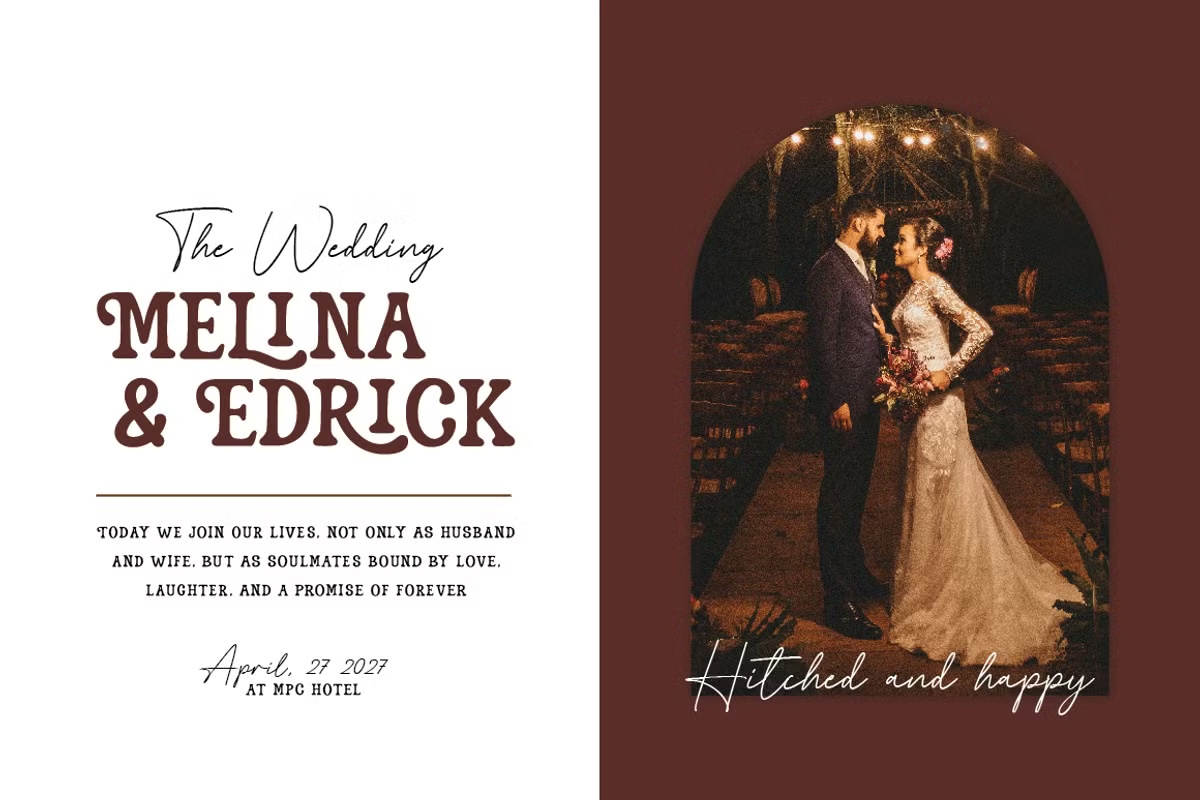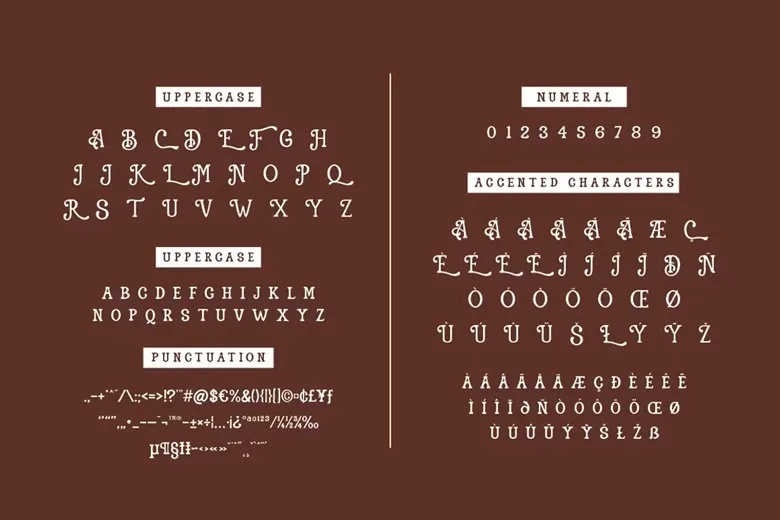
Alendro Font
Alendro is a stylish, old-fashioned display typeface that brings a touch of high-end retro charm and funky sophistication to any project. With its graceful curves and ornate letterforms, it’s perfect for branding, packaging, logos, headlines, and boutique labels. Whether you’re designing for a chic café brand or a premium fashion line, Alendro adds a contemporary artistic flourish that elevates your visual message with timeless class.